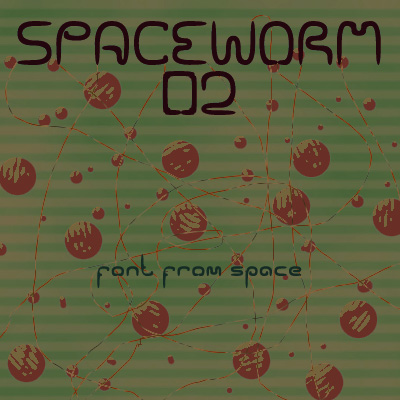
Font name: | Spaceworm 02 |
Author: | The Space Wanderer |
Note by The Space Wanderer | |
this is a second version of SpaceWorm a font i was made. with a lil bit wormy look. |